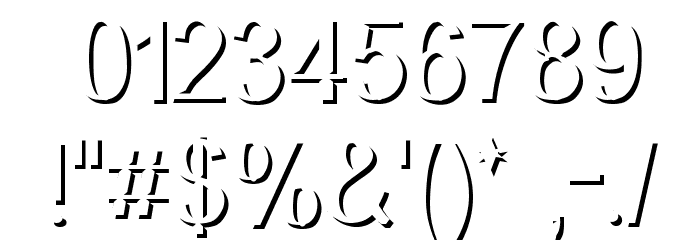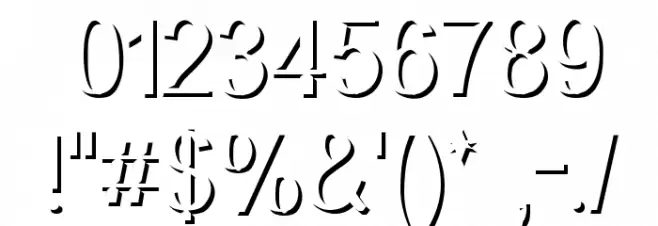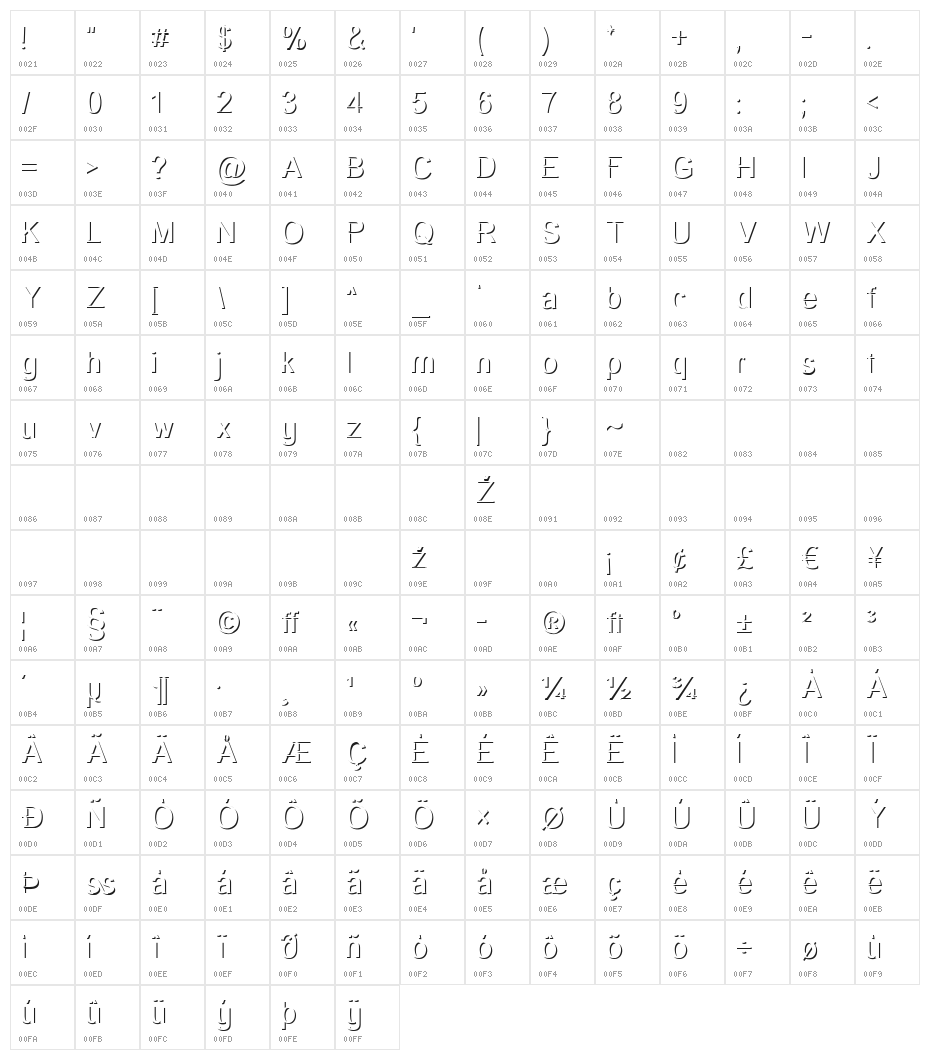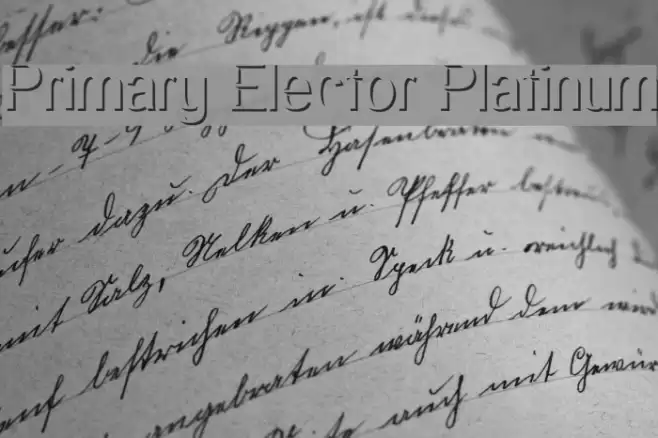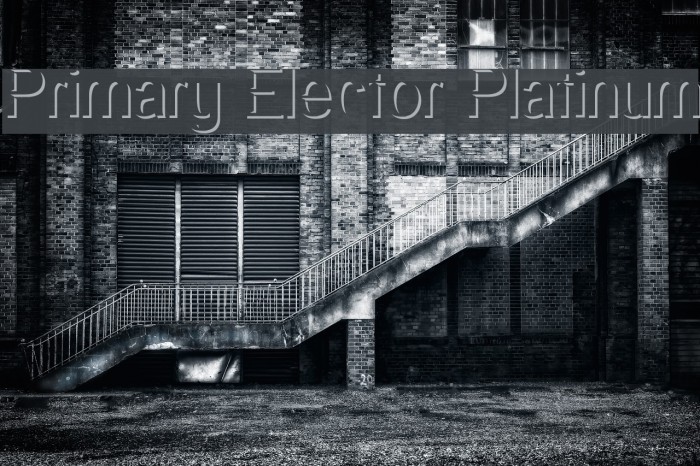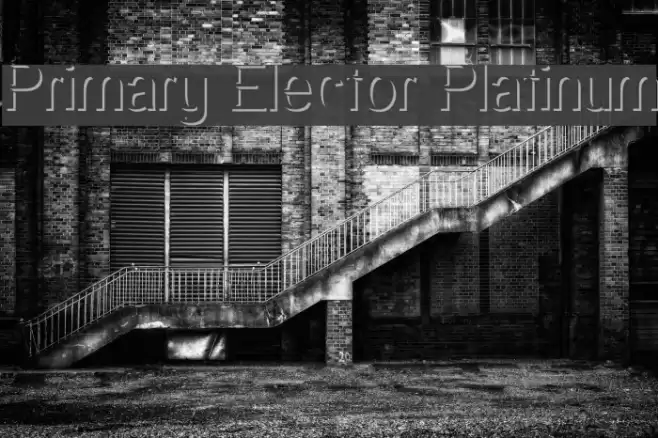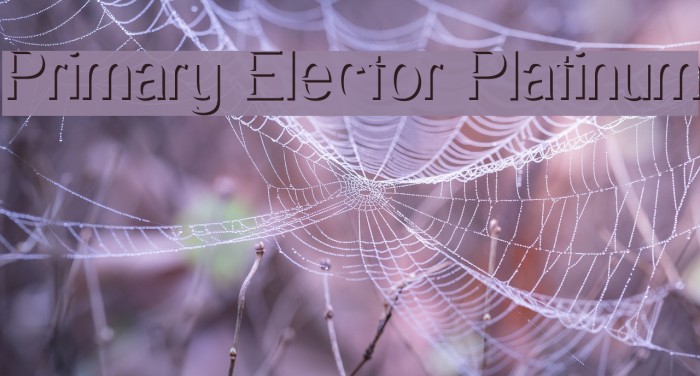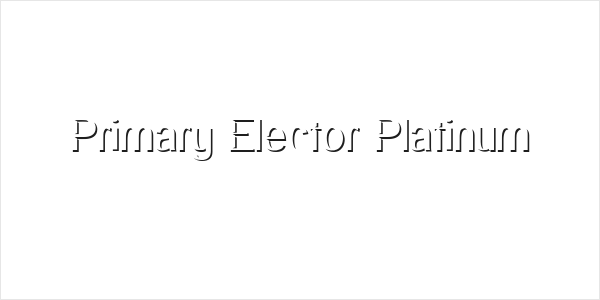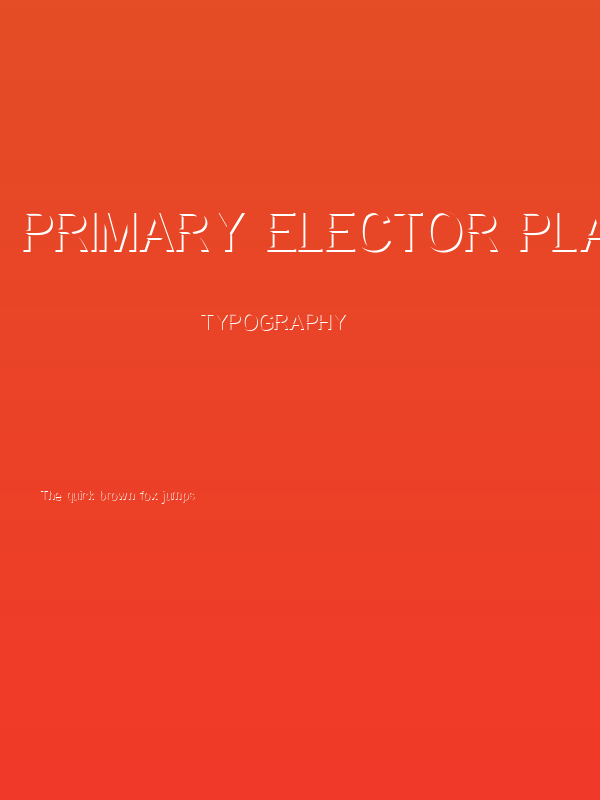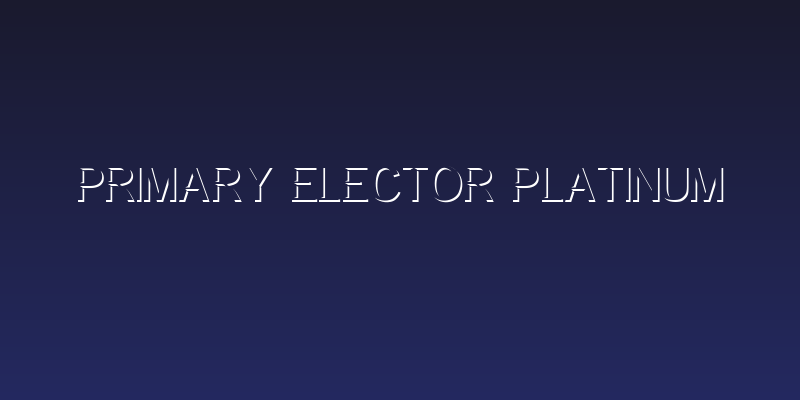
Primary Elector Platinum Font
Primary Elector Platinum Description
This font features a modern and sophisticated design with clean, sharp edges and a distinct three-dimensional effect. The uppercase letters are bold and commanding, while the lowercase letters maintain a consistent style that complements the overall aesthetic. The numerals are clear and easy to read, making them suitable for various applications. Special characters are well-integrated, maintaining the font's cohesive look. The font's unique shadowing adds depth and interest, making it stand out in any design project. Its versatility allows it to be used in both digital and print media, providing a contemporary yet timeless feel.
| Proposed Projects | Ideal for branding, advertising, posters, and digital media projects requiring a modern and impactful look. |